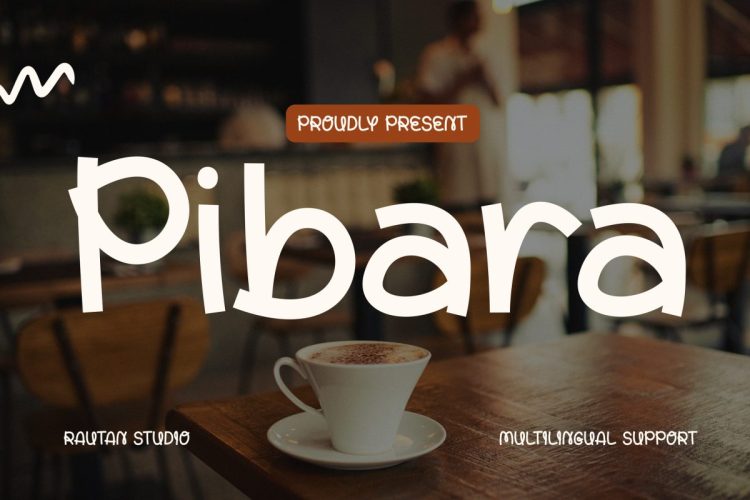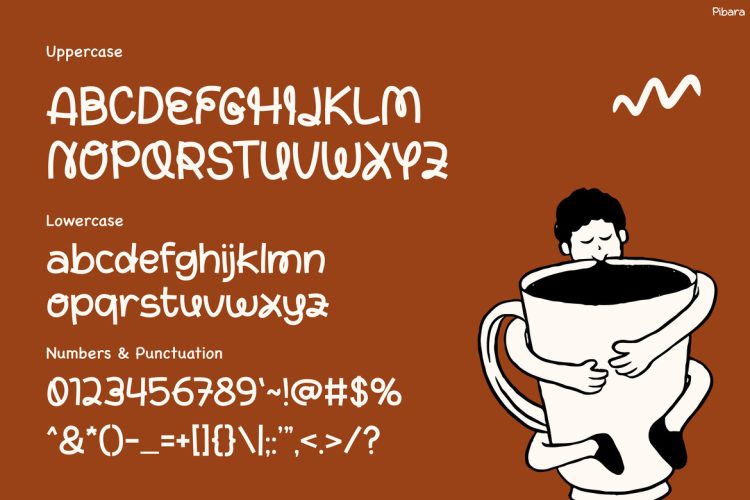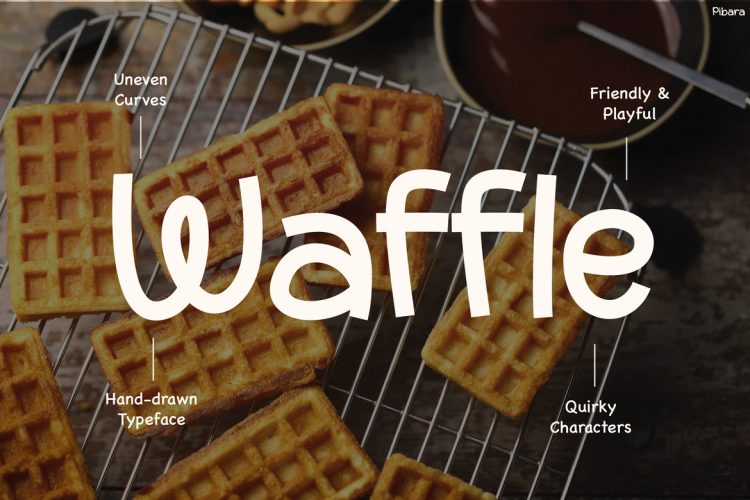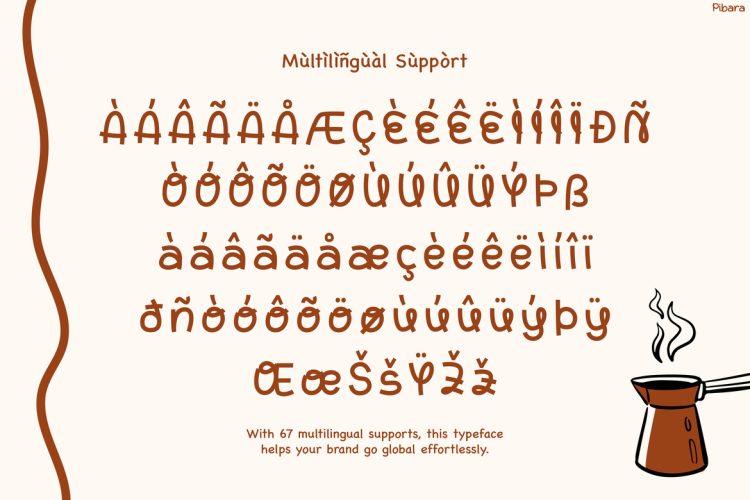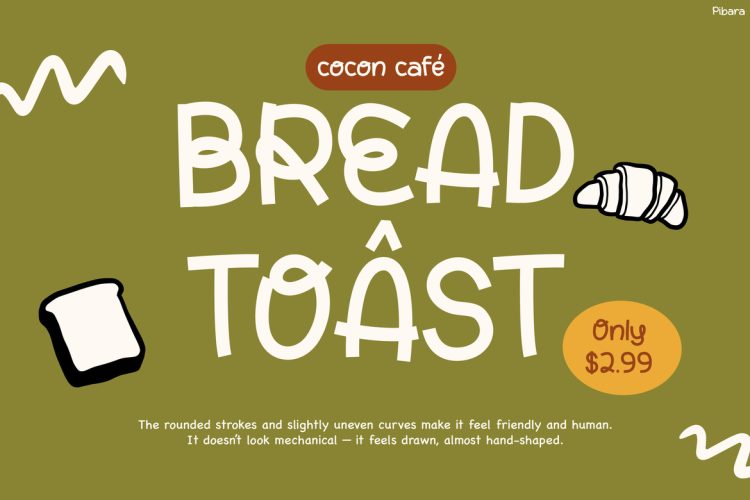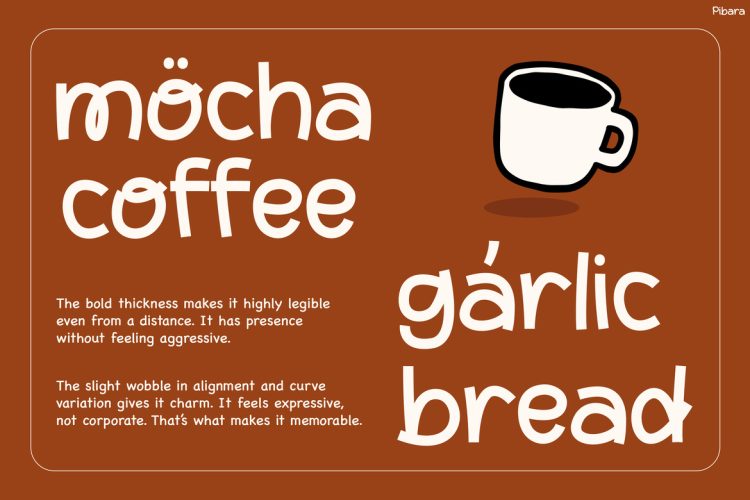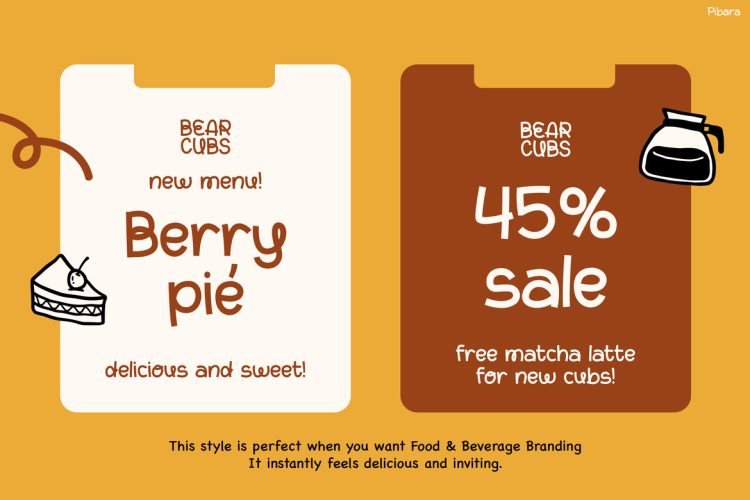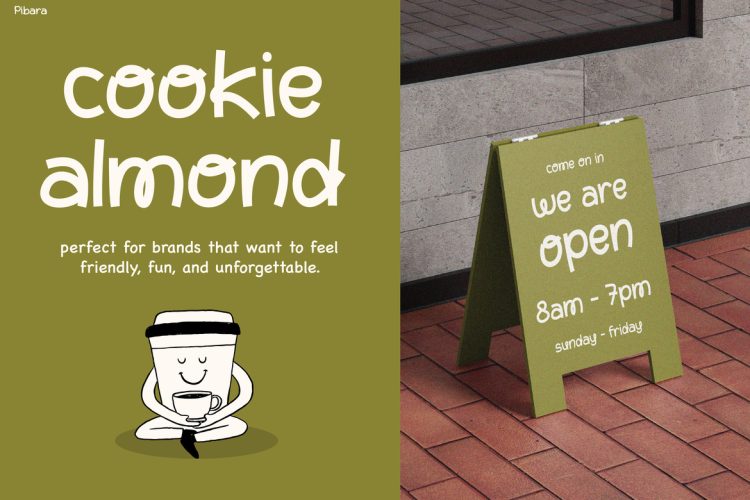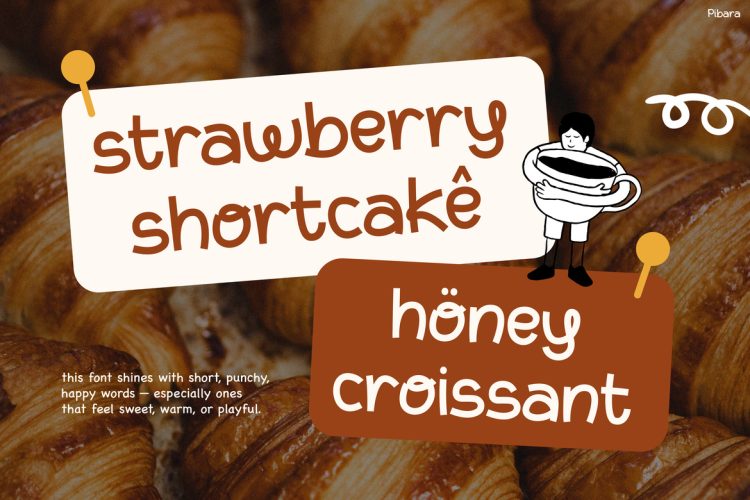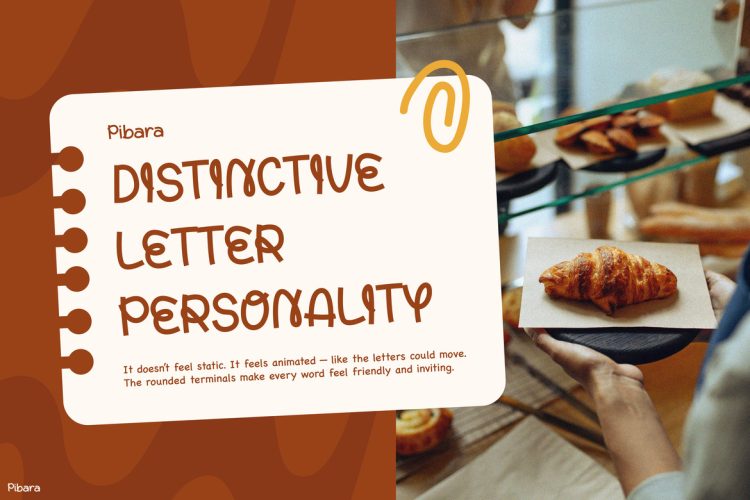
Pibara โ Cozy Handwritten Font with Warm Cafรฉ Vibes
Instagram Font Pibara brings a soft, friendly handwritten style that instantly creates a warm and inviting atmosphere. Its smooth curves, slightly irregular strokes, and natural flow give it an authentic human touch that feels personal and relatable. Moreover, the font carries a cozy aesthetic inspired by cafรฉs, bakeries, and homemade products, making every word look comforting and approachable. The playful yet simple letterforms keep readability high while adding a unique charm to your design. In addition, Pibara balances casual elegance with functionality, so it works beautifully across both digital and print media. With support for 67 languages, it helps you share that warm feeling with audiences around the world.
Pibara is a handwritten display font designed to add personality and warmth to your creative projects. Its organic shapes and relaxed style make your text feel natural and expressive. Furthermore, the slightly imperfect strokes enhance its handcrafted look, which makes your design feel more genuine and engaging. The font works perfectly for headlines, branding, and promotional content. As a result, it helps create a friendly and emotional connection with your audience. Whether used in colorful layouts or minimalist designs, Pibara always delivers a cozy and inviting vibe.
Pibara is perfect for designers, cafรฉ owners, bakery brands, and small businesses that want a personal and welcoming identity. It works great for menu designs, packaging, social media posts, posters, and promotional materials. In addition, it fits food and beverage branding, especially for coffee shops, dessert brands, and homemade products. Not only does it attract attention, but it also builds a warm and memorable brand experience that customers trust.